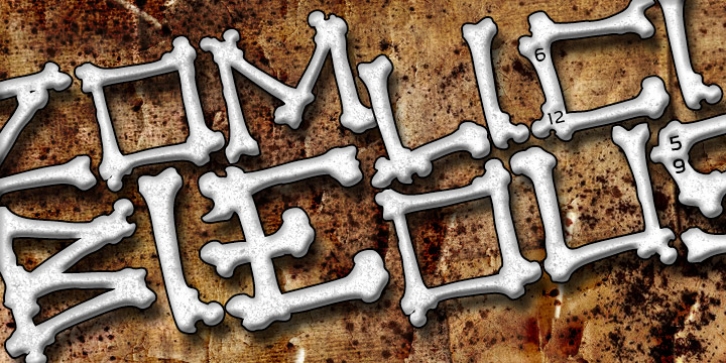
Zombielicious was published by Zombie Font Group. Zombielicious contains 1 style.
A meticulously-designed font that captures the spirit of the undead in a modern world.
One will notice ample graveyard influence crossed with the newer, emerging trends in typography.